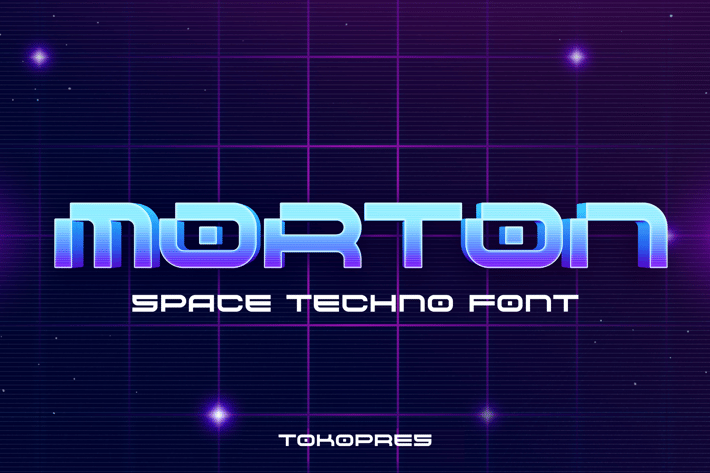
MORTON - Futuristic scifi font
MORTON - Techno Scifi Font
MORTON is a futuristic techno display font designed for modern digital aesthetics, with soft-rounded terminals, wide proportions, and a clean geometric base. It delivers a space-age tone that feels both high-tech and friendly. This font blends retro-futurism with modern legibility—making it ideal for sci-fi projects, game UI, and digital headlines. Whether you're working on a startup dashboard or a space-themed visual novel, MORTON commands attention with bold simplicity.
Designed for developers, designers, and content creators working in tech-forward industries, MORTON thrives in branding, gaming overlays, UI layouts, YouTube thumbnails, and movie titles. Its structured yet imaginative form evokes futuristic innovation while staying grounded in readability. This is the font that brings your tech message to life—sharp, clean, and evocative of digital horizons and space travel storytelling.
Key Features :
✔ Futuristic Form & Readability
- Rounded, modular letter shapes with balanced geometry
- Designed to feel sci-fi without sacrificing legibility
✔ Built for Digital & Motion
- Strong performance in digital design, motion graphics, and app UI
- Makes titles pop in sci-fi branding, games, and cinematic posters
✔ Tech-Friendly and Versatile
- Great for logos, overlays, YouTube channels, dashboards, and pitch decks
- Ideal for space-themed birthday invites, arcade titles, and concept visuals